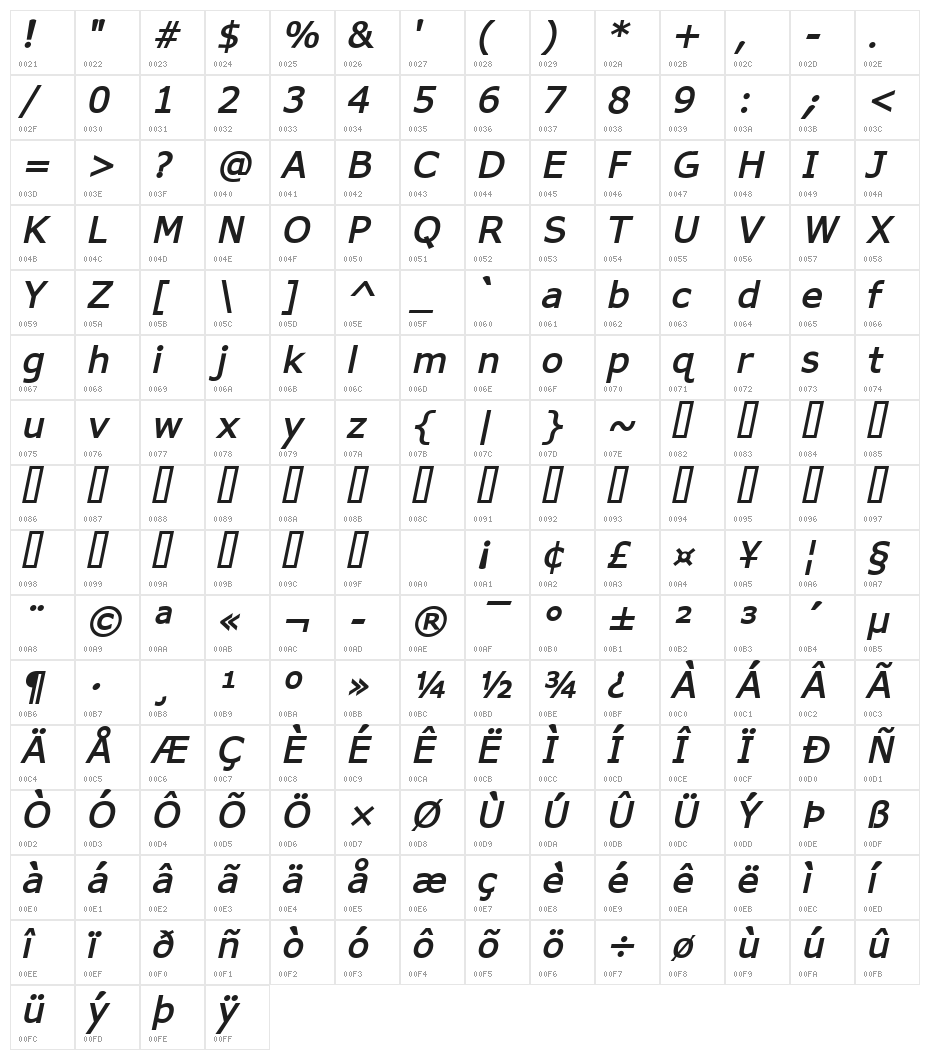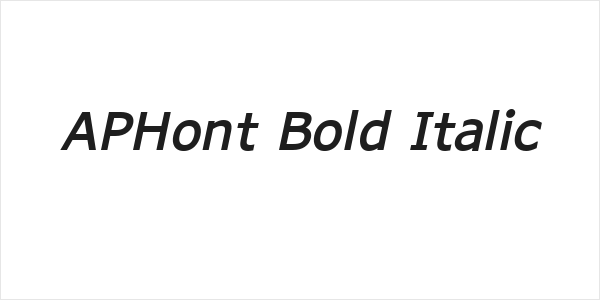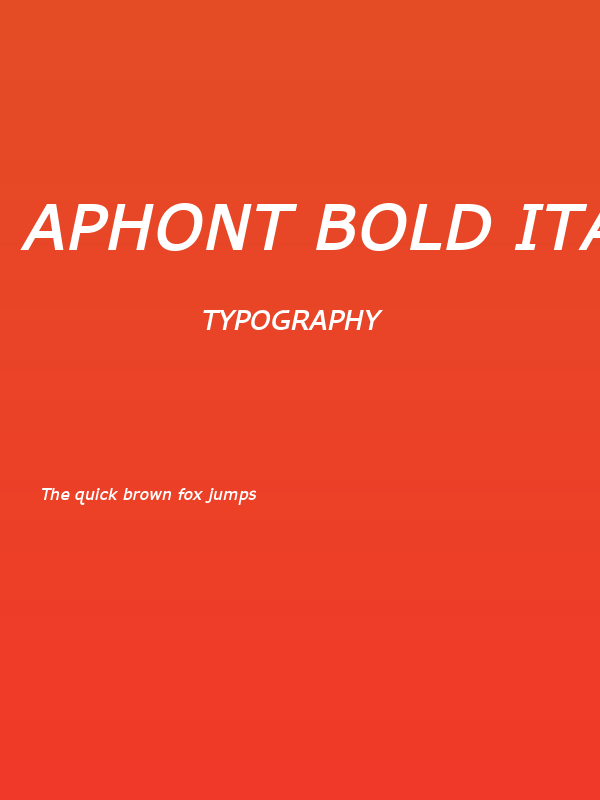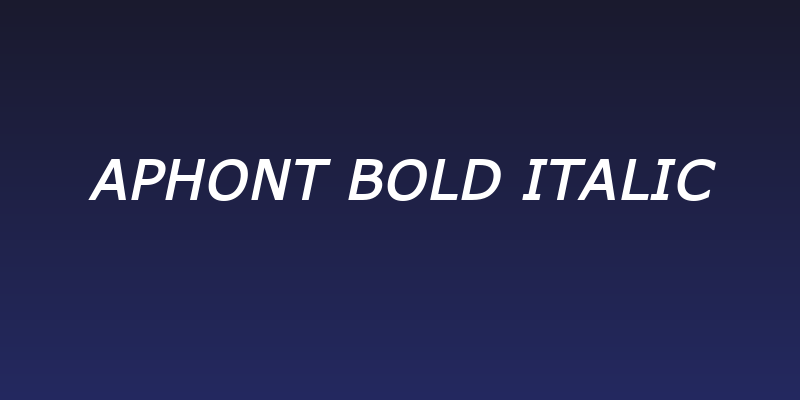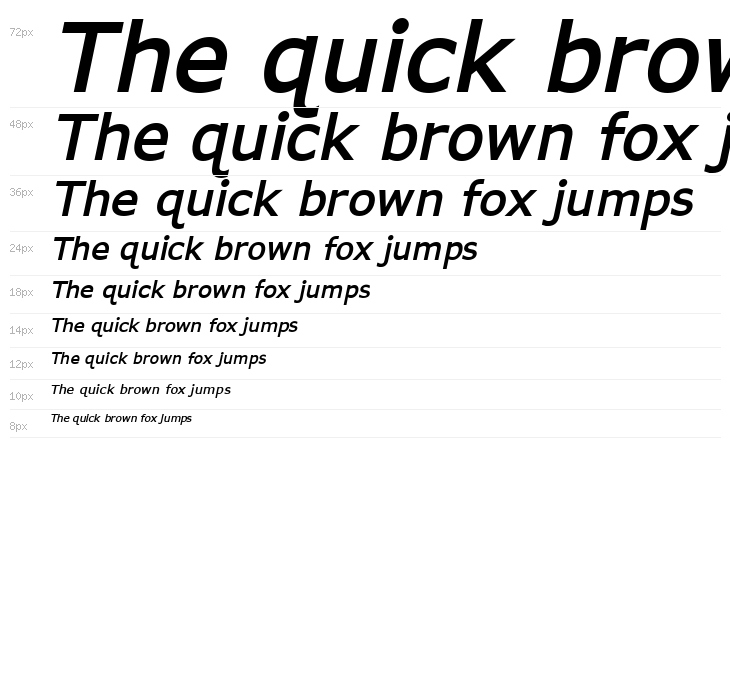
APHont Bold Italic Font
APHont Bold Italic Description
This font features a bold and italicized style, combining strength and elegance. The characters are slightly slanted, giving a dynamic and forward-moving appearance. The strokes are consistent in weight, providing a uniform look across all characters. The uppercase letters are tall and commanding, while the lowercase letters maintain a balanced proportion. Numbers are clear and easily distinguishable, making them suitable for various applications. Special characters are well-defined, adding versatility to the font's use. Overall, this font is both professional and approachable, making it suitable for a wide range of design projects.
| Use Case | Headlines, Logos, Digital content |
| Proposed Projects | Ideal for branding, advertising, headlines, and digital content where a strong yet elegant presence is needed. |